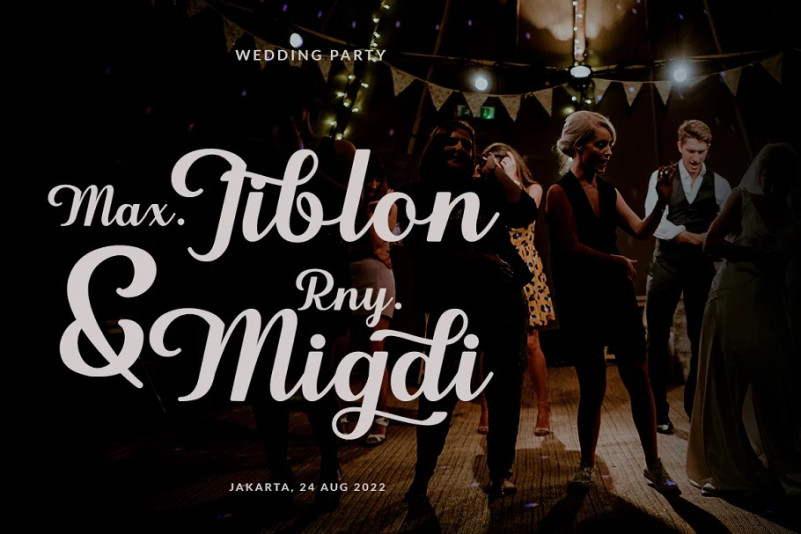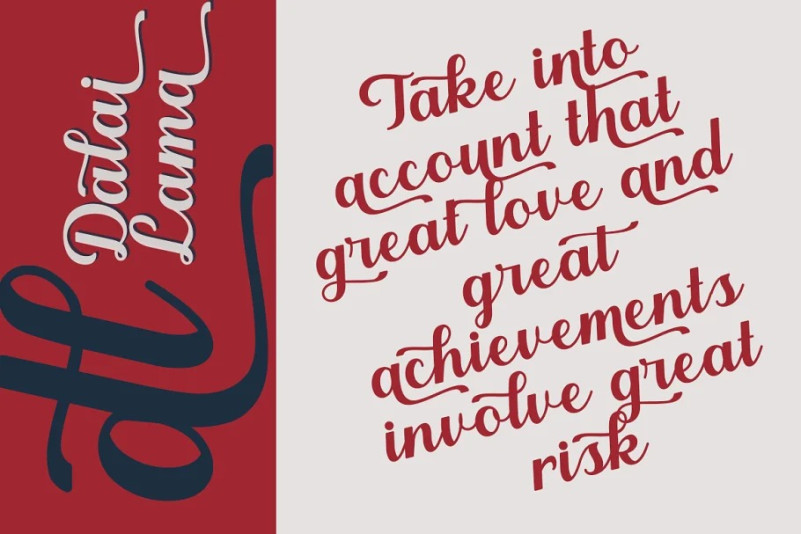
Kingsmith Font
Kingsmith Script Font is a script typeface inspired by vintage typography and fonts in the 40s. The basic letters are simple but modified with stylistics to make it look more attractive, there are many alternatives.Great for logos, titles, t-shirts, packages, and anywhere else you need this kind of lined, legible script font.